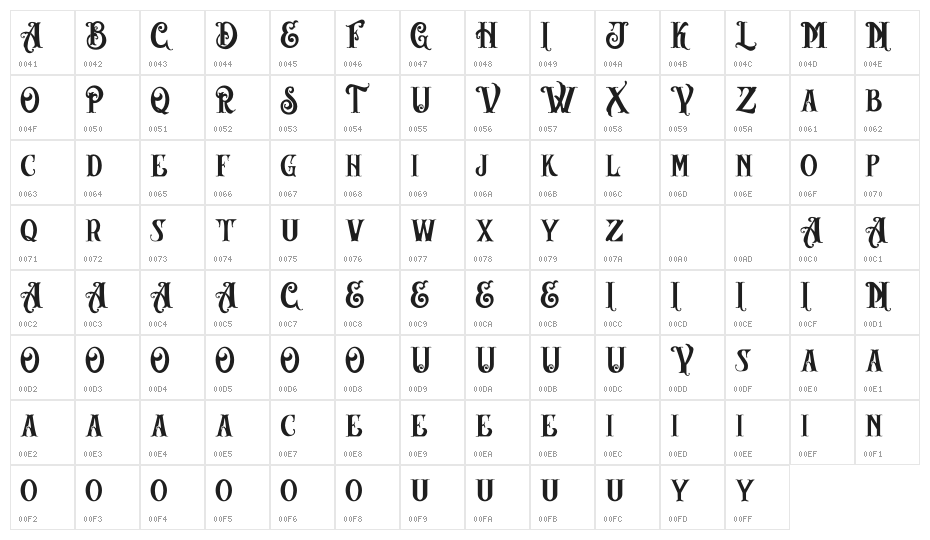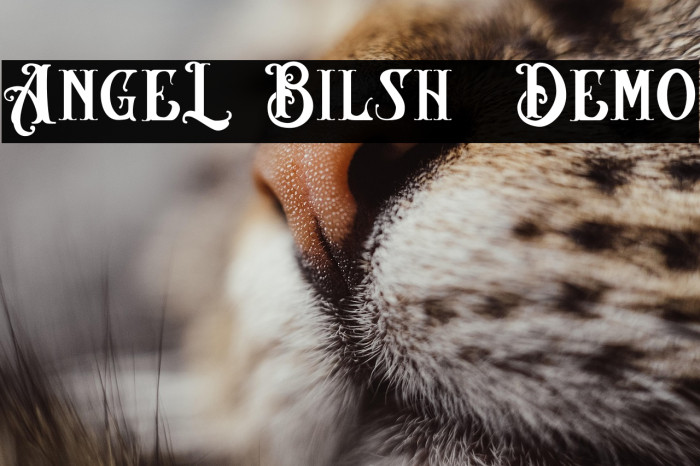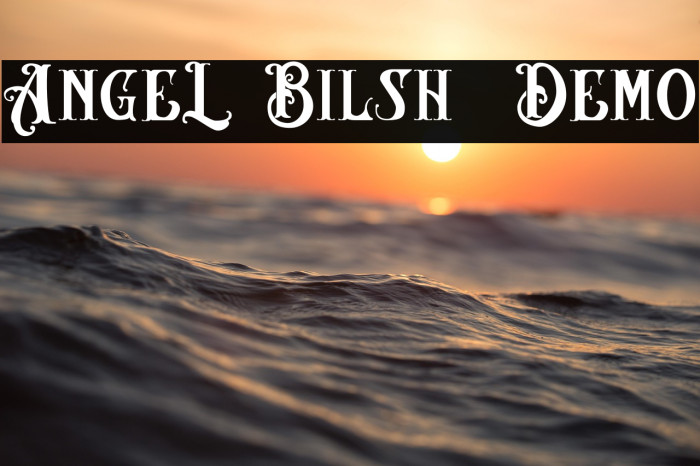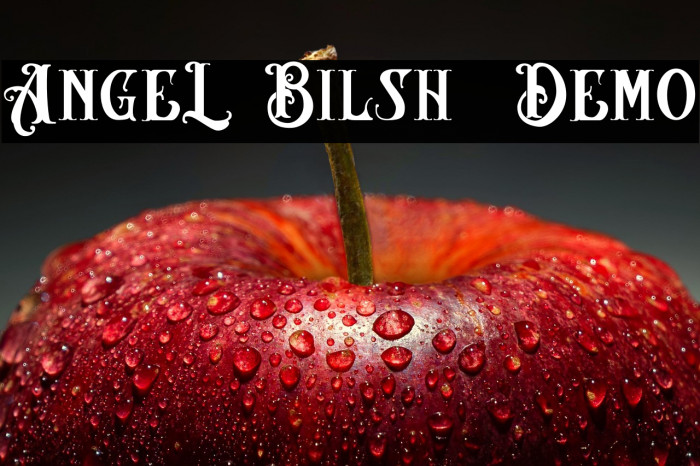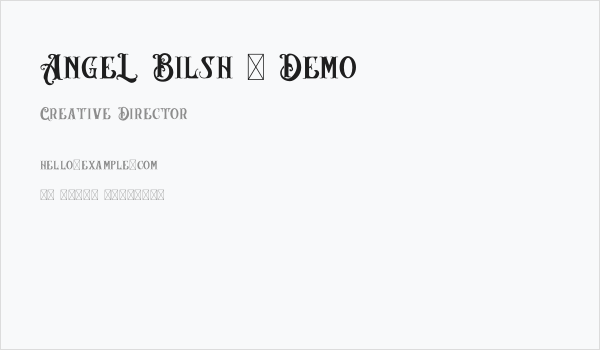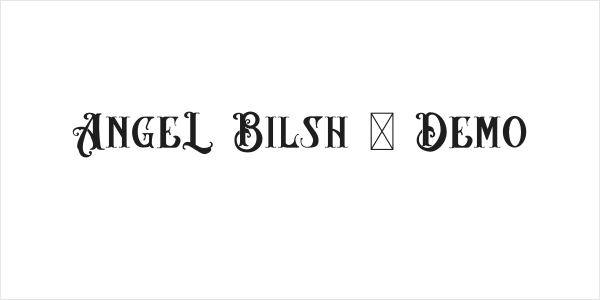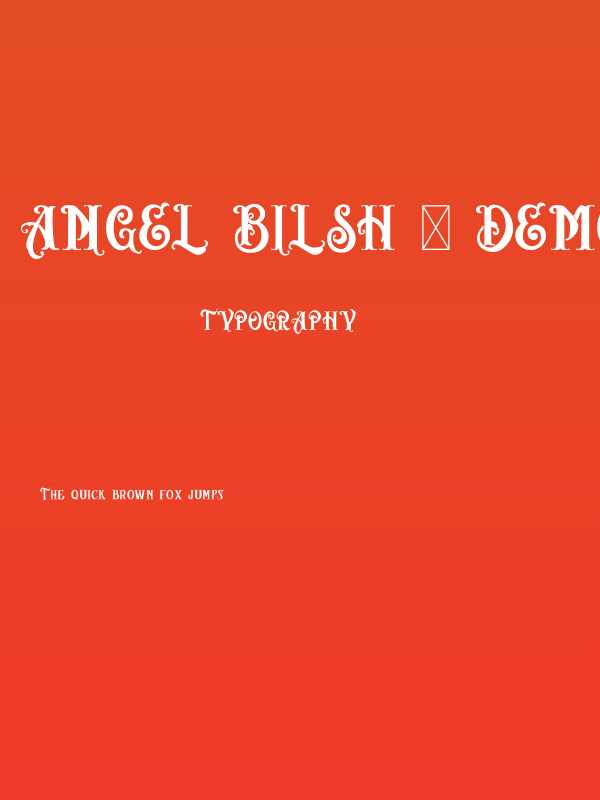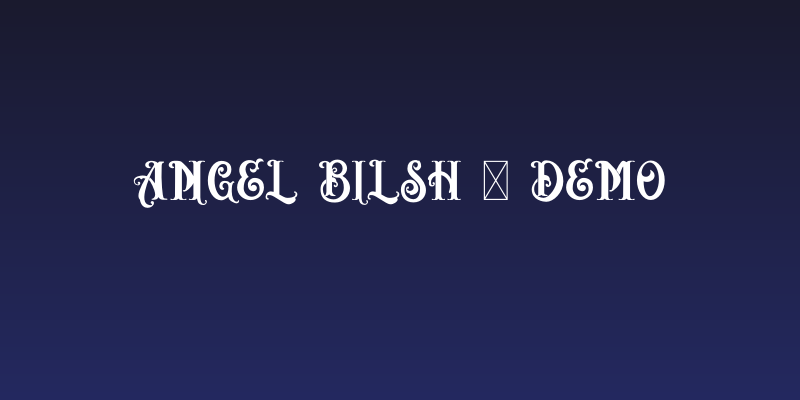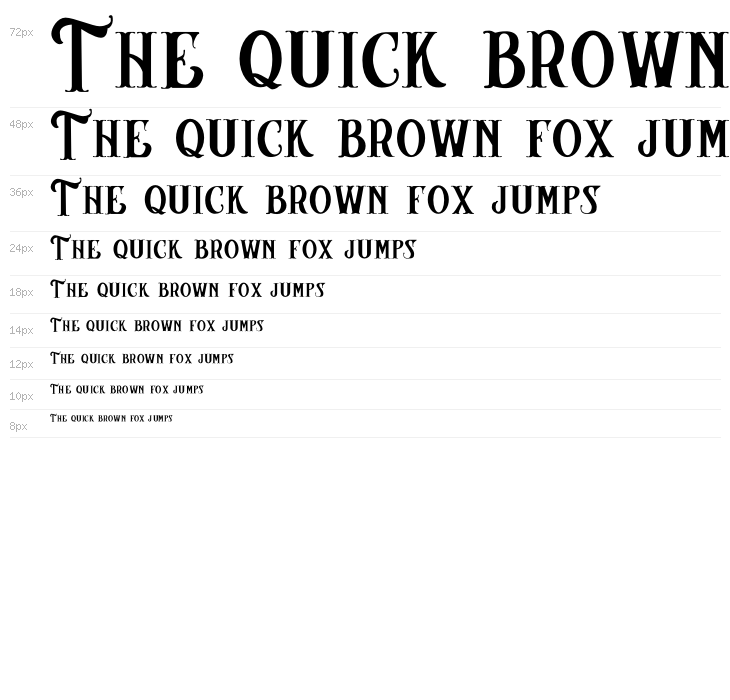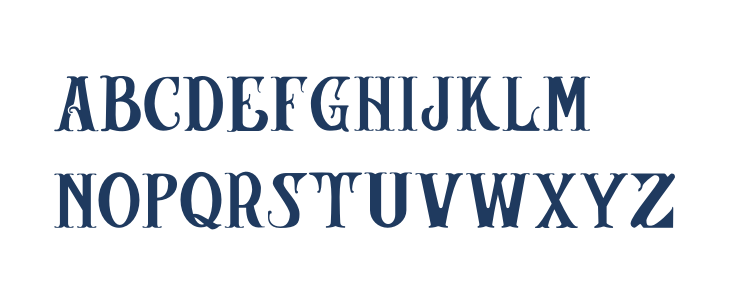
AngeL Bilsh - Demo Font
AngeL Bilsh - Demo Description
This font features a bold and decorative style with intricate details and flourishes that give it a unique and artistic appearance. The uppercase letters are characterized by their ornate serifs and curved elements, creating a sense of elegance and sophistication. The overall design is reminiscent of vintage or classic typography, making it suitable for projects that require a touch of nostalgia or historical flair. The font's boldness ensures it stands out, while the decorative elements add a layer of complexity and visual interest.
| Proposed Projects | Ideal for use in branding, posters, invitations, and any design project that seeks to evoke a classic or vintage aesthetic. |